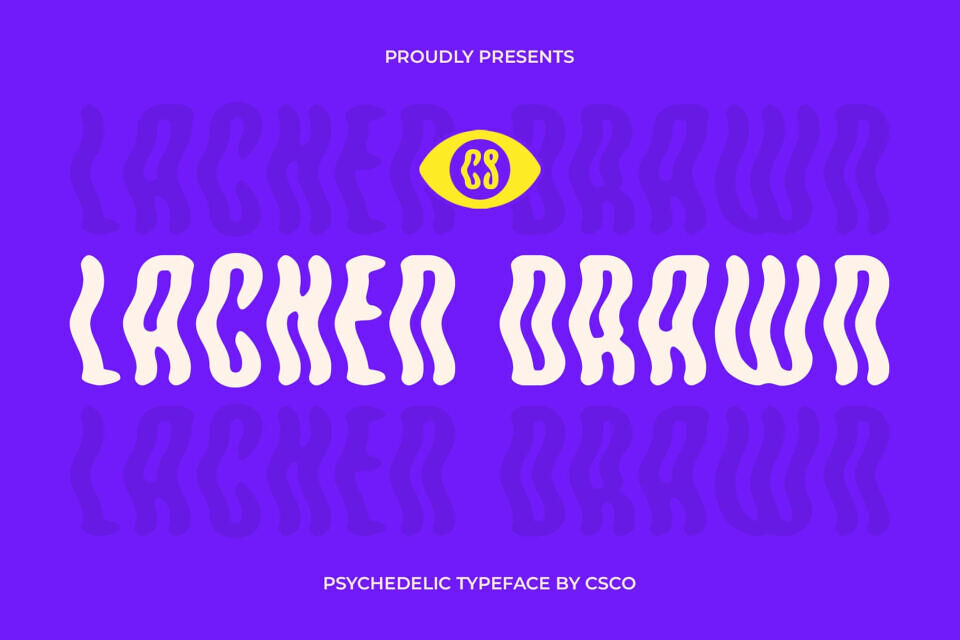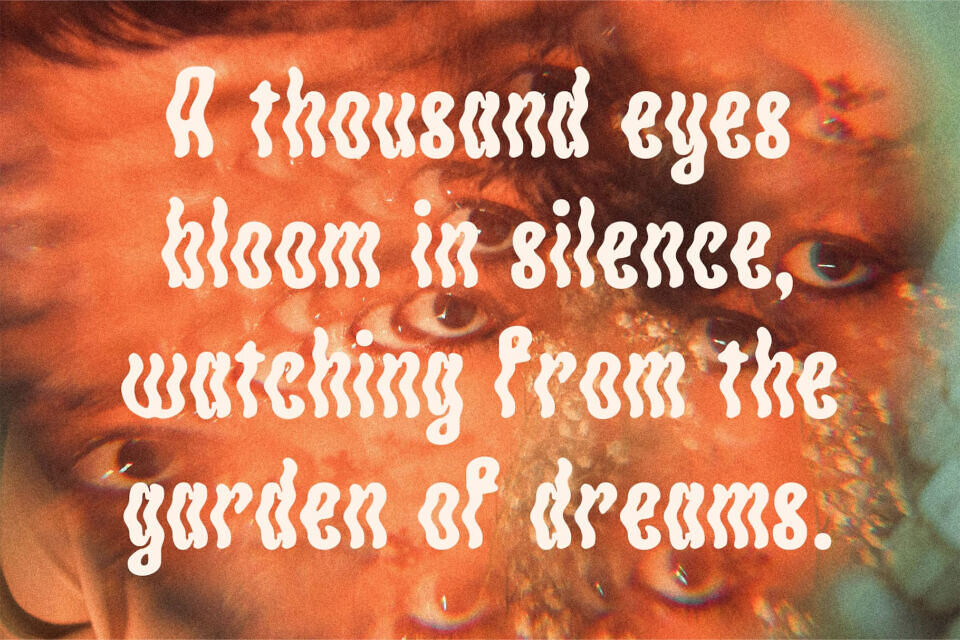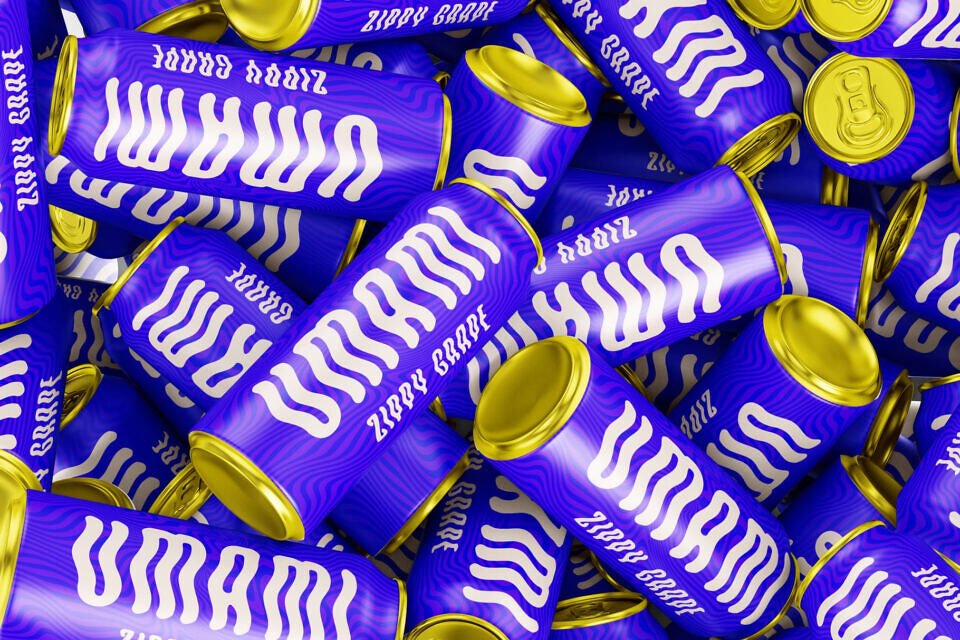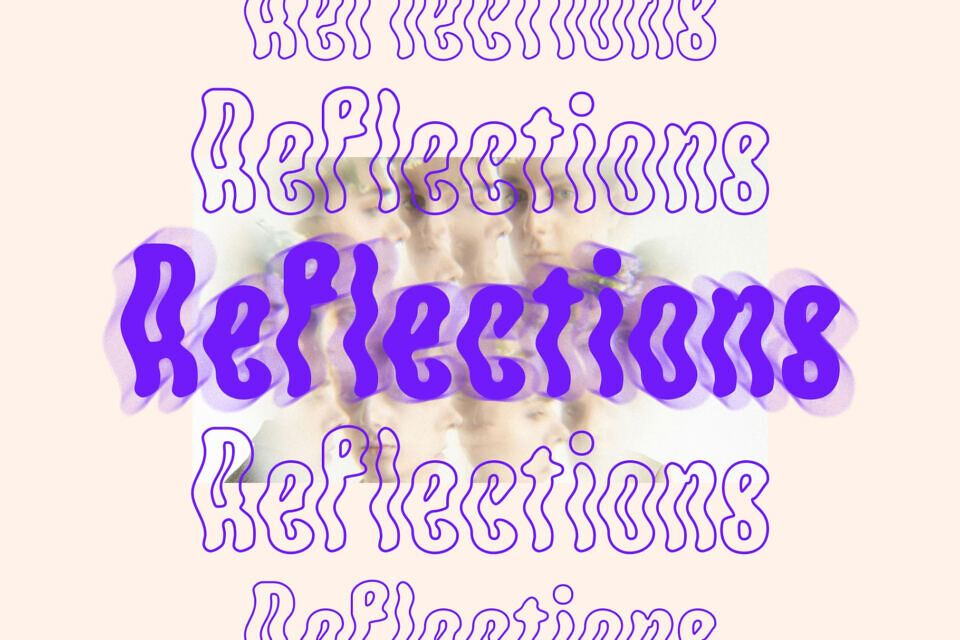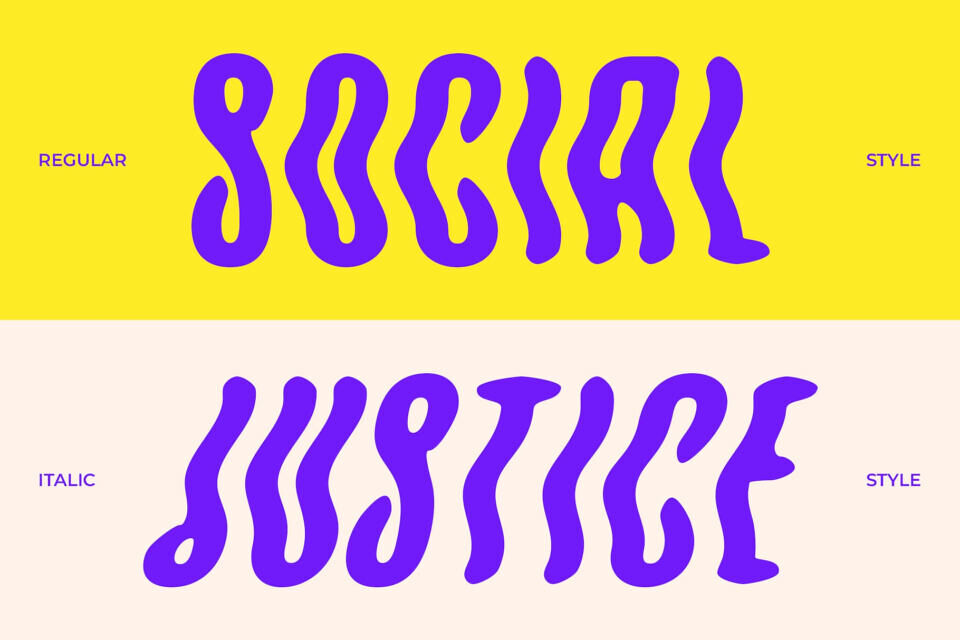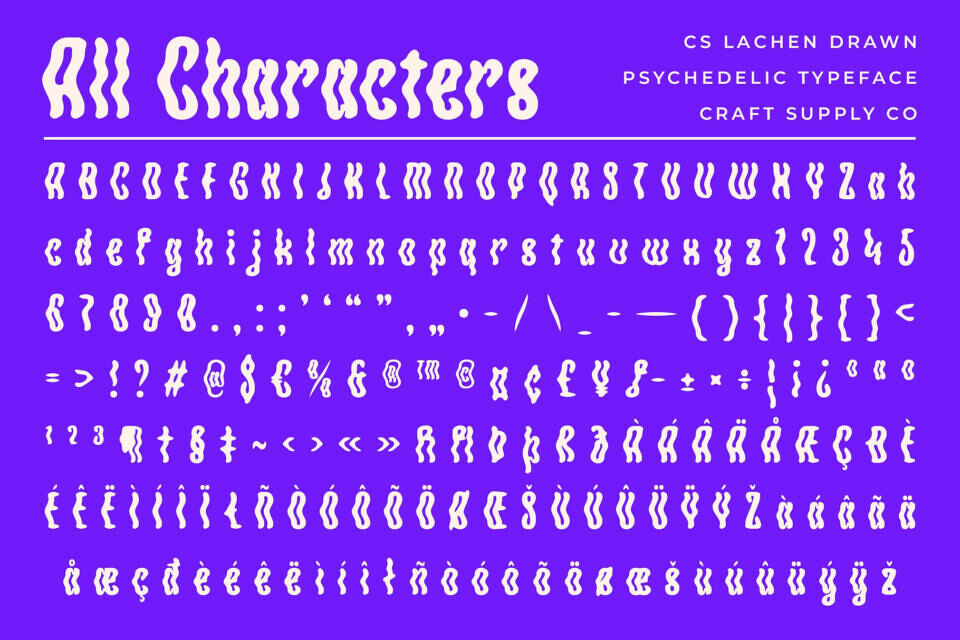
CS Lachen Drawn is a modern display font that celebrates freeform creativity and experimental design. Its letterforms are inspired by psychedelic aesthetics, featuring unusual curves, imaginative distortions, and an unpredictable flow that breaks away from traditional structure. Every glyph is a visual expression of movement, as if captured in a constant dance of color, rhythm, and emotion.
With its funky, fluid shapes and almost musical flow, this font radiates cheerfulness and rebellious joy. Whether you’re designing music posters, event graphics, album art, expressive branding, or editorial spreads, this cheerful and expressive font brings a unique visual voice that commands attention. It’s ideal for any project that wants to capture the spirit of imagination, artistic exploration, and joyful rebellion.